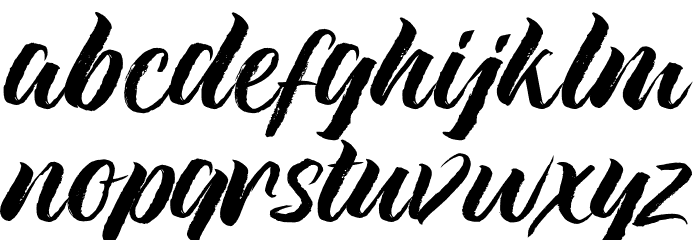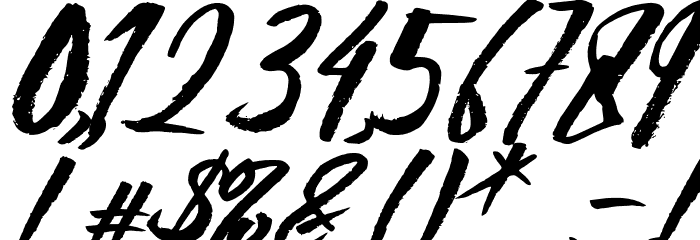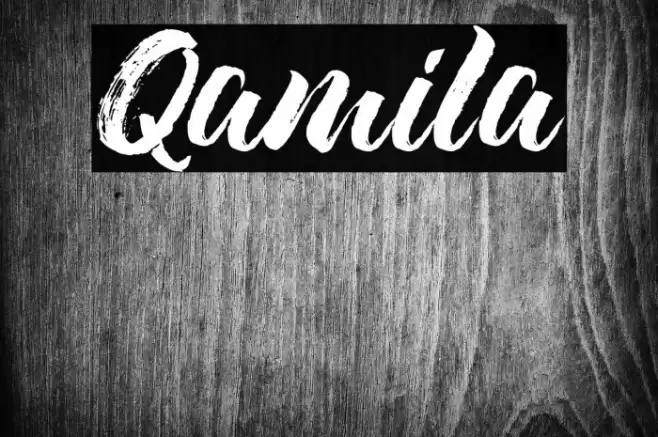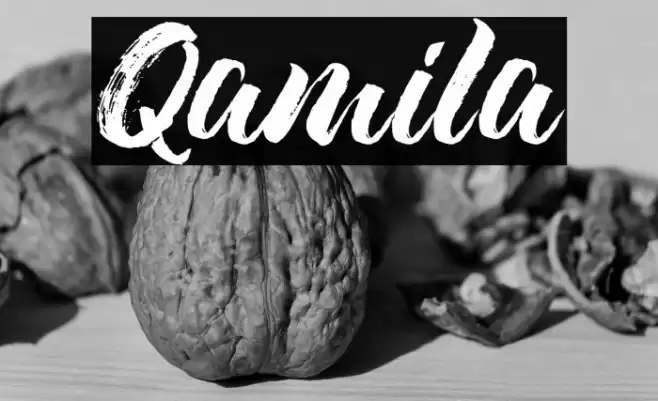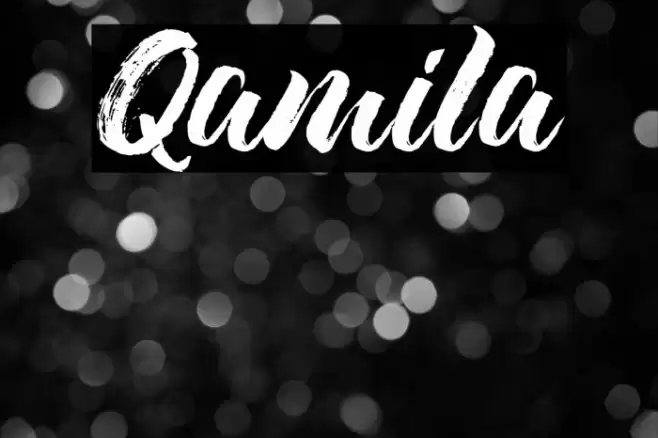
Qamila Font
This font exhibits a bold and expressive brush script style, characterized by its dynamic and fluid strokes. The letters have a hand-painted appearance, with varying thickness that adds a sense of movement and energy. The uppercase and lowercase letters maintain a consistent style, with slightly exaggerated curves and angles that enhance its artistic flair. The numerals and special characters follow the same expressive design, ensuring a cohesive look across all elements. This font is ideal for projects that require a personal touch or a creative, informal vibe.
A bold, expressive brush script font with dynamic, fluid strokes.
- Proposed Projects: Ideal for branding, packaging, posters, and invitations where a personal, artistic touch is desired.